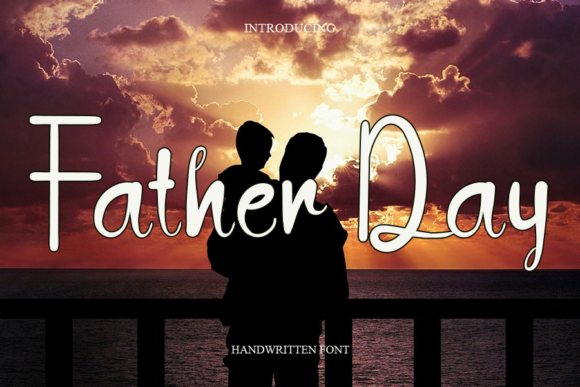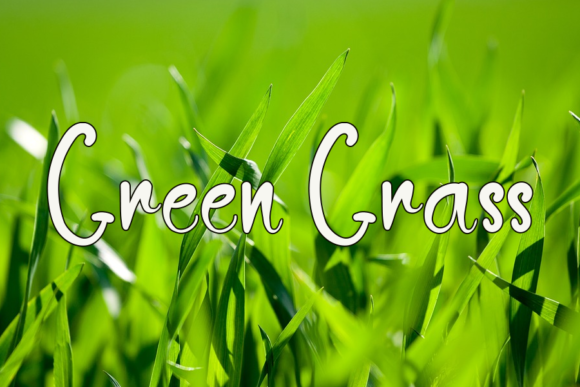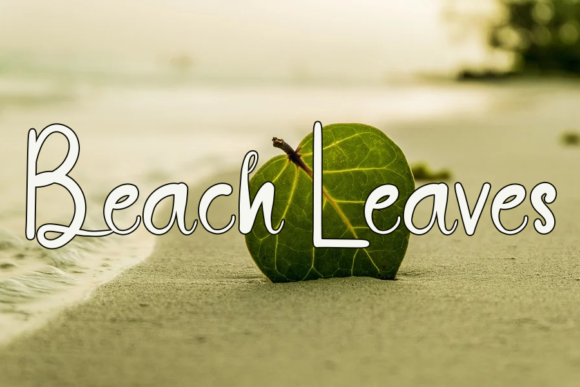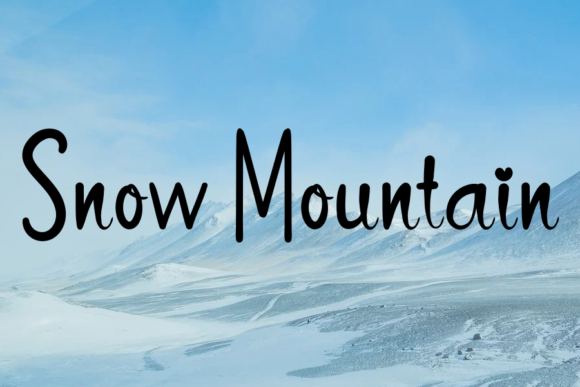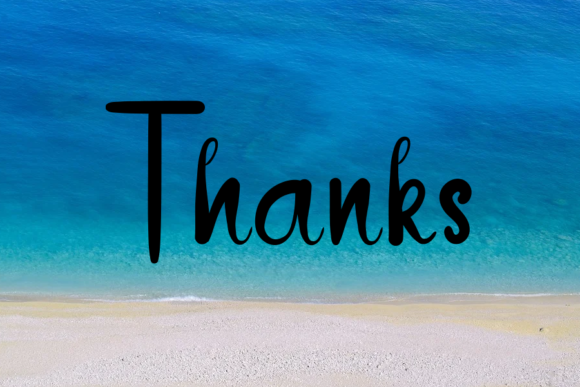
Father Day Font
About Father Day Font
Father Day is a chic and versatile script font. This font was particularly crafted for those who need a beautiful and refreshing look to their designs.